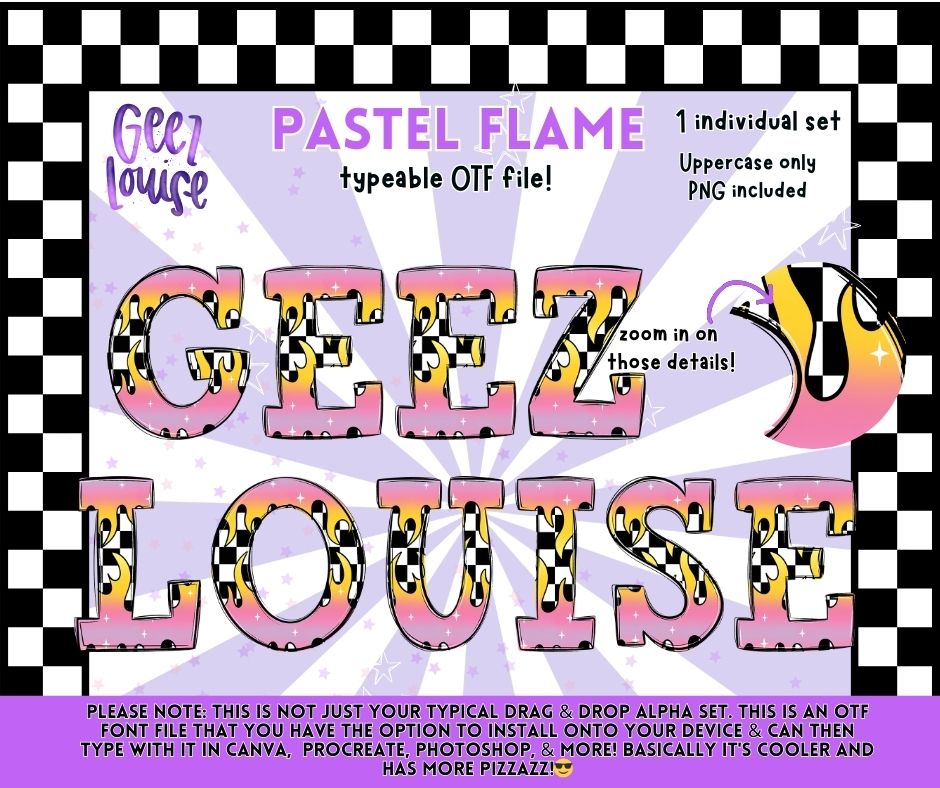
Pastel Flame OTF Font & PNG Alpha Set | Typeable Alphabet | Uppercase Letters | Digital Download
Add bold pastel flame style lettering to your designs with this typeable OTF alpha set featuring a fun flame and checkerboard inspired look.